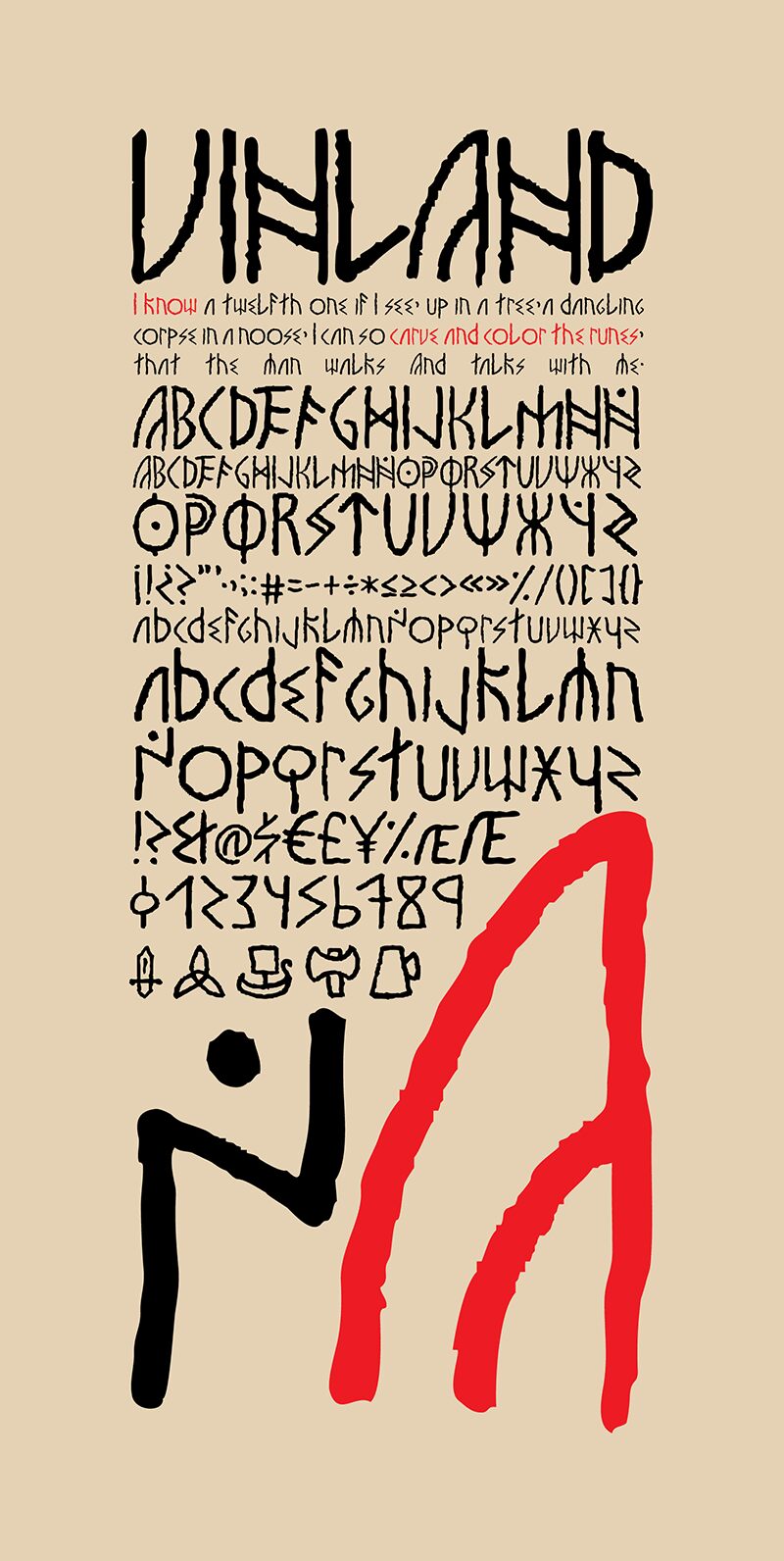
Vinland, designed by Bruno Salvador Laurenzano, is a free hand-drawn display font with raw, uneven strokes. Its letters look quickly painted. Tall, narrow forms, wavering edges, and abrupt changes in stroke width give the writing a restless, primitive quality.
It can turn a title into part of a rough illustration rather than a clean typographic layer. That role suits underground music posters, horror game graphics, and handmade merchandise, especially when the surrounding artwork uses scratched lines or crude ink textures. Album packaging is another convincing setting, linked to those uses by the font's stark marks and deliberately unrefined construction.